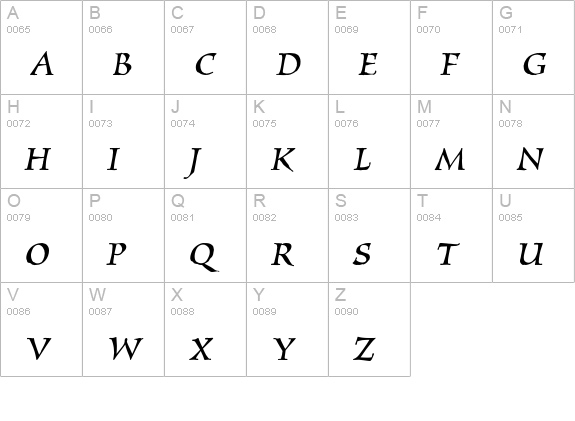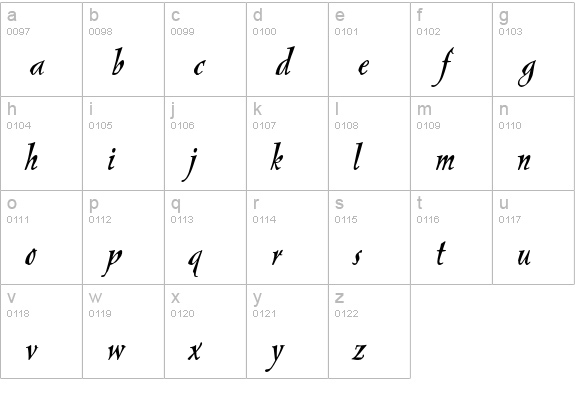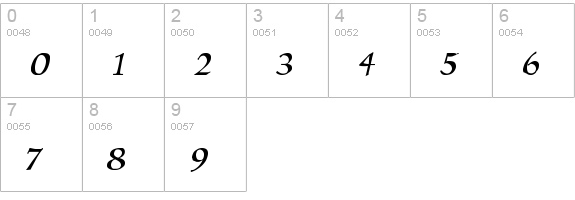
Pelican Font Details
Introducing Pelican font, a stunning typeface that effortlessly combines classic elegance with a modern twist. Designed with meticulous attention to detail, Pelican showcases a harmonious balance between clean, crisp lines and subtle curves, resulting in a timeless font that is both versatile and visually captivating. With its sleek and sophisticated aesthetic, Pelican is the perfect choice for a wide range of design projects. Whether used for branding, logo design, editorial layouts, or website headers, this font exudes a sense of refinement and professionalism that instantly elevates any design. One of the most remarkable aspects of Pelican font is that it is freely available to download at FontsMarket.com. This means that designers and creatives from all walks of life can access and enjoy the beauty and versatility of this remarkable typeface without any financial constraints. This commitment to accessibility and inclusivity allows Pelican to truly shine, as it becomes a valuable asset in the creative arsenal of designers worldwide. The versatility of Pelican font is further highlighted by its extensive glyph set, which includes a wide range of characters, accents, punctuation marks, and symbols. This comprehensive collection ensures that designers have all the tools they need to bring their creative visions to life, no matter the language or project requirements. Another standout feature of Pelican font is its exceptional legibility. The carefully crafted letterforms ensure that each character is easily distinguishable, even at small sizes or in challenging environments. This makes Pelican an ideal choice for both print and digital applications, where readability is paramount. Whether used in a bold headline or as elegant body text, Pelican font effortlessly captures attention and commands a presence on the page. Its timeless design and eye-catching appeal make it a truly remarkable addition to any design project. In conclusion, Pelican font is a stunning typeface that combines classic elegance with a modern edge. Its freely available nature on FontsMarket.com ensures that designers have access to this remarkable font without any financial barriers. With its versatility, extensive glyph set, exceptional legibility, and captivating presence, Pelican font is a valuable asset for any creative endeavor. Download it today and unleash your design potential!